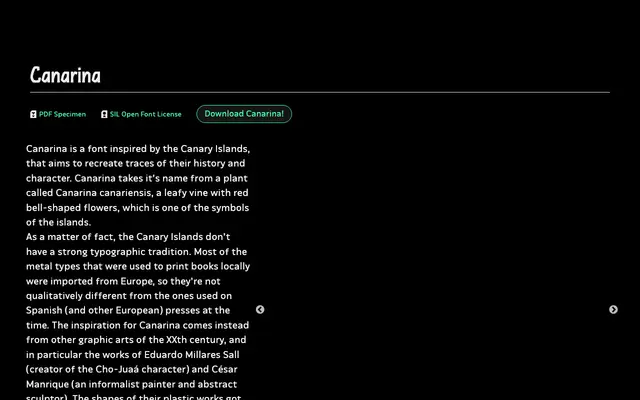
Canarina
A display typeface rooted in the visual arts of the Canary Islands, drawing on the plastic works of Eduardo Millares Sall and César Manrique for its wide, expressive letterforms.
Designed by Ariel Martín Pérez and released under the SIL Open Font License, Canarina takes its name from the Canarina canariensis plant native to the Canary Islands. In the absence of a strong local typographic tradition, the design turns to 20th-century graphic and sculptural arts of the archipelago, finding its distinctive wide angles and vernacular character in informalist painting and abstract sculpture. Version 2.0 added new weights, improved Latin language support and refined drawing and spacing throughout.
Canarina is a display typeface drawing on the visual culture of the Canary Islands, with wide angles and expressive letterforms inspired by the plastic arts of Eduardo Millares Sall and César Manrique rather than typographic convention.